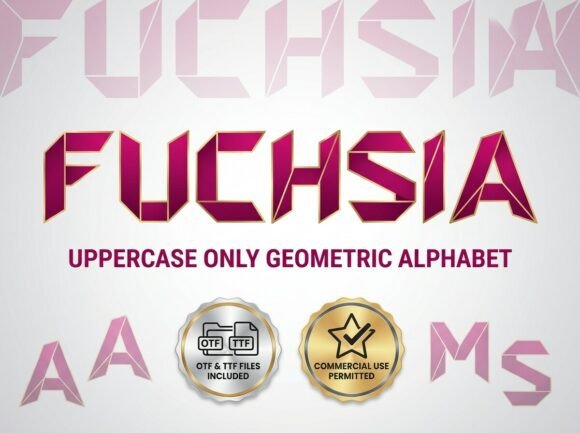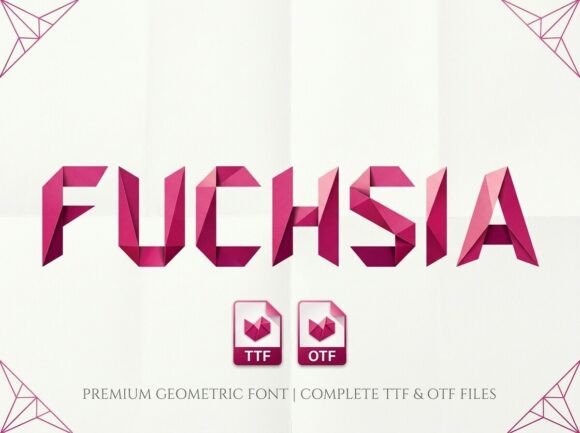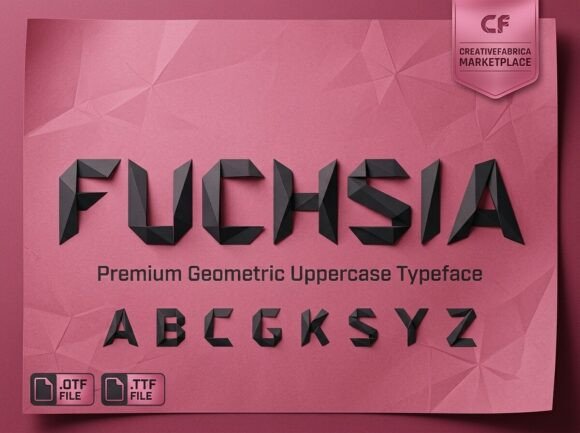
Introducing Fuchsia Font: Elevate Your Design with Precision and Style
In the world of typography, a font can make or break a design. For creatives and designers looking to push the boundaries of innovation and style, the Fuchsia Font is a game-changer. This stunning display font seamlessly merges mathematical precision with high-fashion aesthetics, making it the perfect choice for those who want to sharpen their design edge.
The Unique Construction of Fuchsia
Fuchsia boasts a sophisticated “low-poly” or origami-inspired construction that sets it apart from other fonts. Each letter is composed of crisp, angular facets, giving it a precision-engineered look that is both avant-garde and authoritative. This unique construction makes Fuchsia a standout in the world of typography, perfect for designs that require a cutting-edge feel.
Ideal Applications for Fuchsia
Fuchsia is not just a font; it’s a design statement. Its distinctive style makes it the definitive choice for a variety of applications, including:
- Tech-forward branding: For companies that operate at the intersection of technology and innovation, Fuchsia offers a modern and sleek visual identity.
- Architectural firms: The precision and angularity of Fuchsia reflect the meticulous planning and design that goes into architectural projects.
- Futuristic gaming interfaces: Fuchsia’s cutting-edge aesthetic is perfect for gaming interfaces that require a dynamic and immersive user experience.
- High-end automotive design: For luxury car brands or automotive designers, Fuchsia conveys a sense of speed, innovation, and high performance.
Design Possibilities with Fuchsia
Whether you’re designing a cutting-edge logo, a cinematic header, or any other visual element, Fuchsia delivers a level of sophistication and elegance that’s hard to match. Its versatility allows it to be used in a variety of contexts, from digital interfaces to print materials. The precision-engineered look of Fuchsia ensures that your designs not only look modern but also convey a sense of authority and professionalism.
Why Choose Fuchsia?
In a sea of fonts, Fuchsia stands out for several reasons:
- Unique Aesthetic: The low-poly, origami-inspired design of Fuchsia offers a fresh alternative to traditional typography.
- Versatility: Fuchsia can be used across various platforms and design applications, making it a valuable addition to any designer’s toolkit.
- Impact: The distinctive look of Fuchsia ensures that your designs grab attention and leave a lasting impression.
Fuchsia Font is more than just a typeface; it’s a design tool that can elevate your work to new heights. With its unique blend of mathematical precision and high-fashion aesthetics, Fuchsia is poised to become a favorite among designers and creatives who are looking to make a statement. Whether you’re working on a branding project, architectural visualization, or a futuristic game interface, Fuchsia offers the perfect combination of style, precision, and impact. Sharpen your design edge with Fuchsia and discover a world of possibilities where technology meets elegance.
With Fuchsia Font, the possibilities are endless. Join the ranks of innovative designers who are already making their mark with this stunning typeface. Elevate your designs, push the boundaries of creativity, and let Fuchsia be the key to unlocking your next masterpiece.